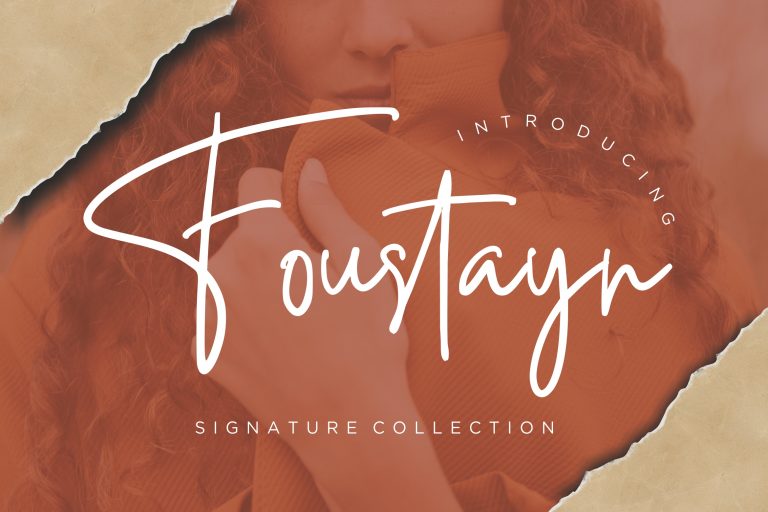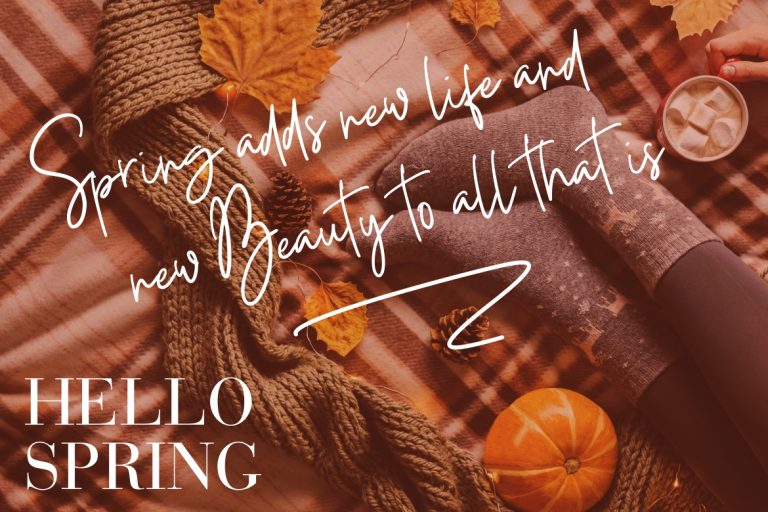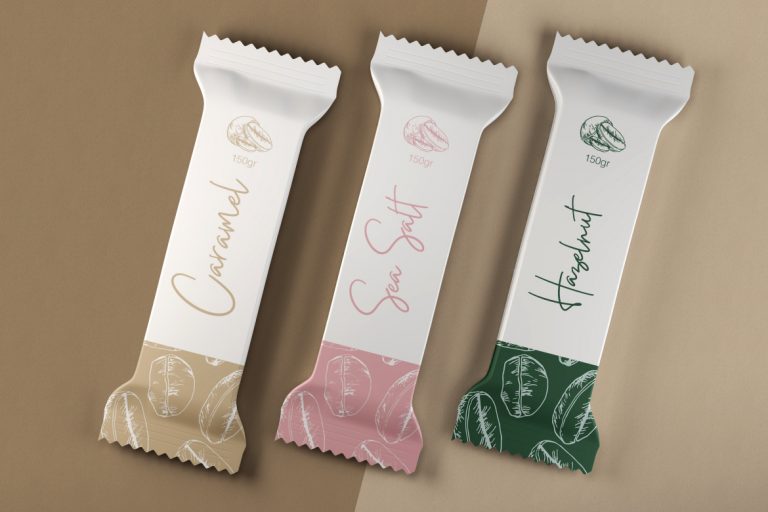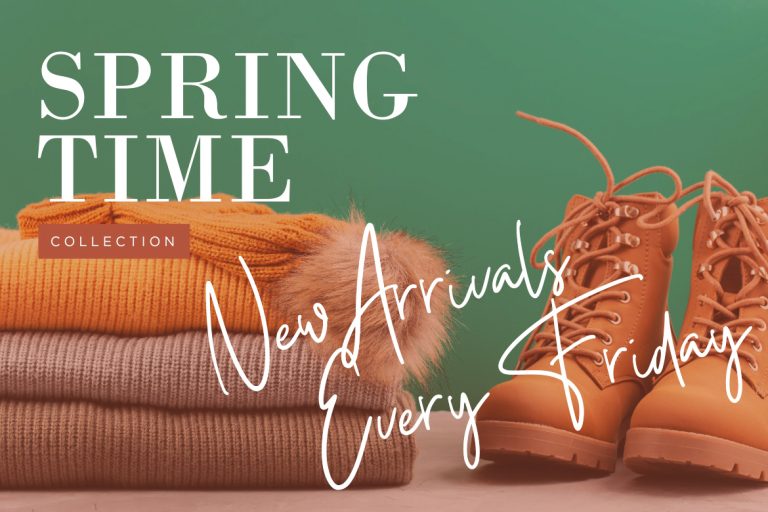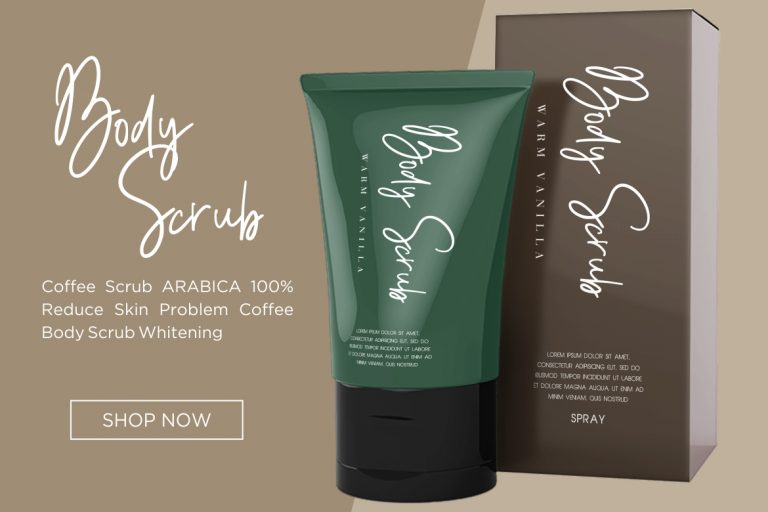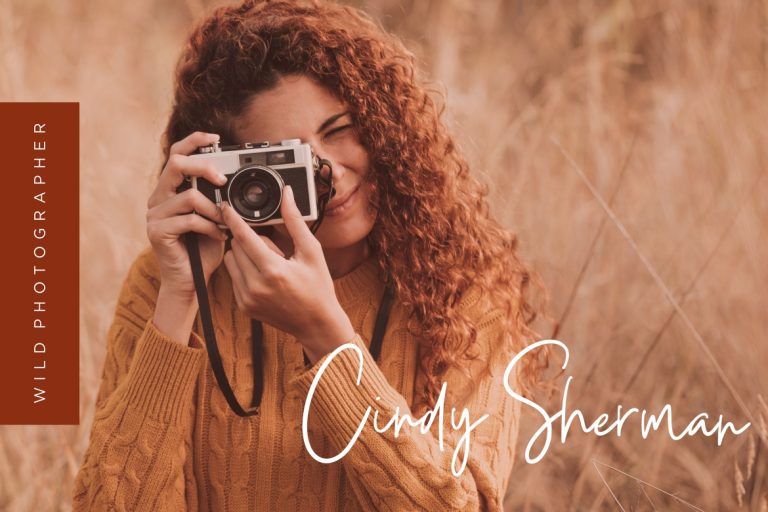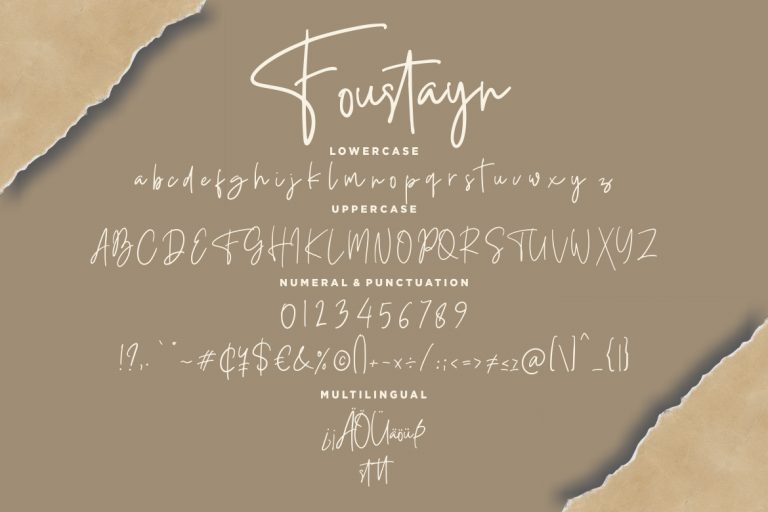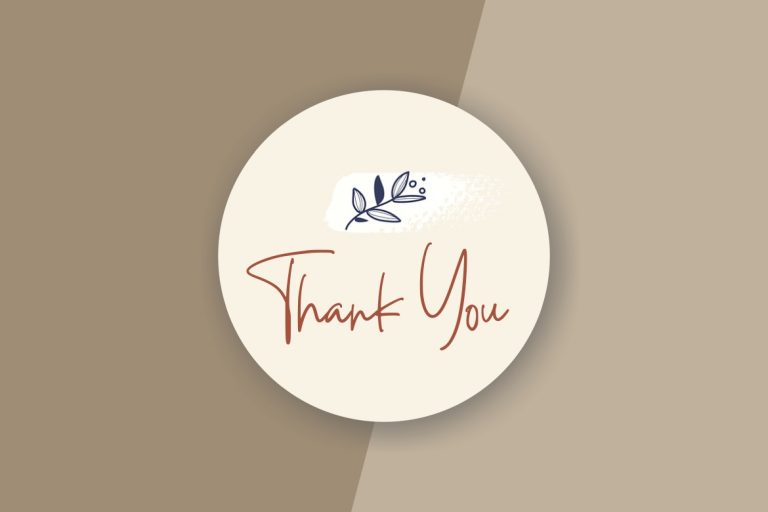
Foustayn is signature script font collection that perfect for your awesome project.
Foustayn is perfect for branding projects, logo, wedding designs, social media posts, advertisements, product packaging, product designs, label, photography, watermark, invitation, stationery and any projects that need handwriting taste.
- Fonts include multilingual support for; ä ö ü Ä Ö Ü ß ¿ ¡
Foustayn Signature Collection